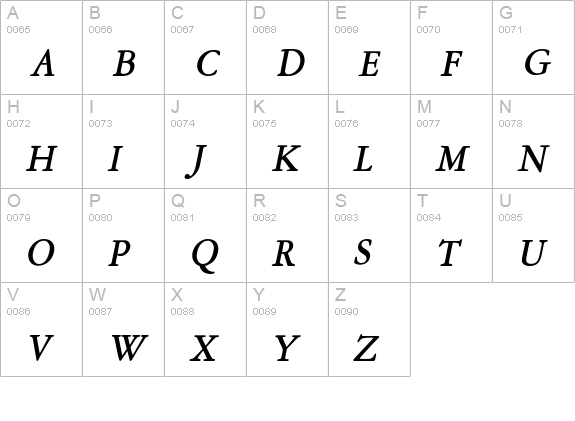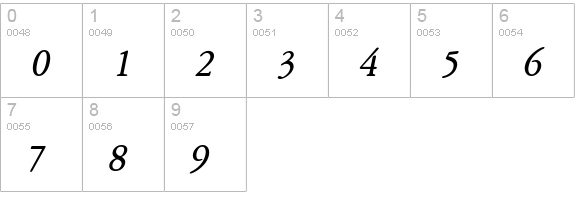
Amery-Condensed Bold Italic Font Details
Amery-Condensed Bold Italic is a strong, high-contrast, condensed-width, italic variant in the Amery typeface family \xE2\x80\x94 well suited to headlines, attention-grabbing titles, and strong calls-to-action.
Amery-Condensed Bold Italic is a stunning and modern font that exudes elegance and sophistication. Its condensed style gives it a sleek and chic appearance, while the bold and italic weights add a touch of drama and flair. Perfect for adding emphasis and impact to your designs, this versatile font is ideal for headlines, logos, branding, and more. With its bold strokes and slanted italics, Amery-Condensed Bold Italic commands attention and makes a bold statement. Whether you're looking to create eye-catching posters, striking web graphics, or memorable packaging, this font is sure to make your designs stand out. And the best part? Amery-Condensed Bold Italic is available for free download at FontsMarket.com. So you can elevate your projects with this stylish and impactful font without breaking the bank. Download it today and unleash your creativity with Amery-Condensed Bold Italic!